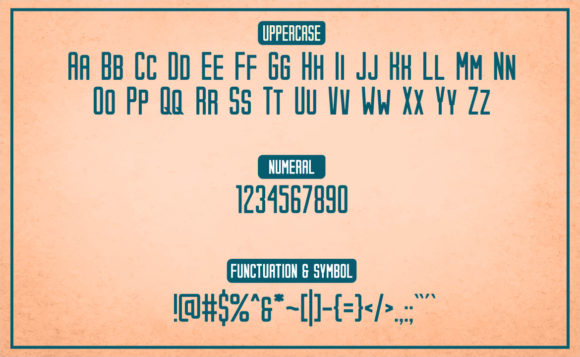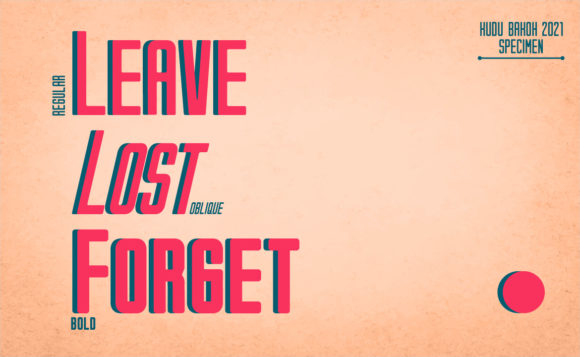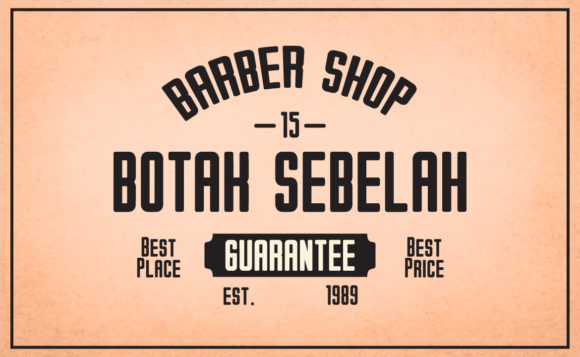
Introduction to Kudu Bakoh Font
Kudu Bakoh is a simple and sharp looking display font, that will truly inspire your works.
Key Features of Kudu Bakoh Font